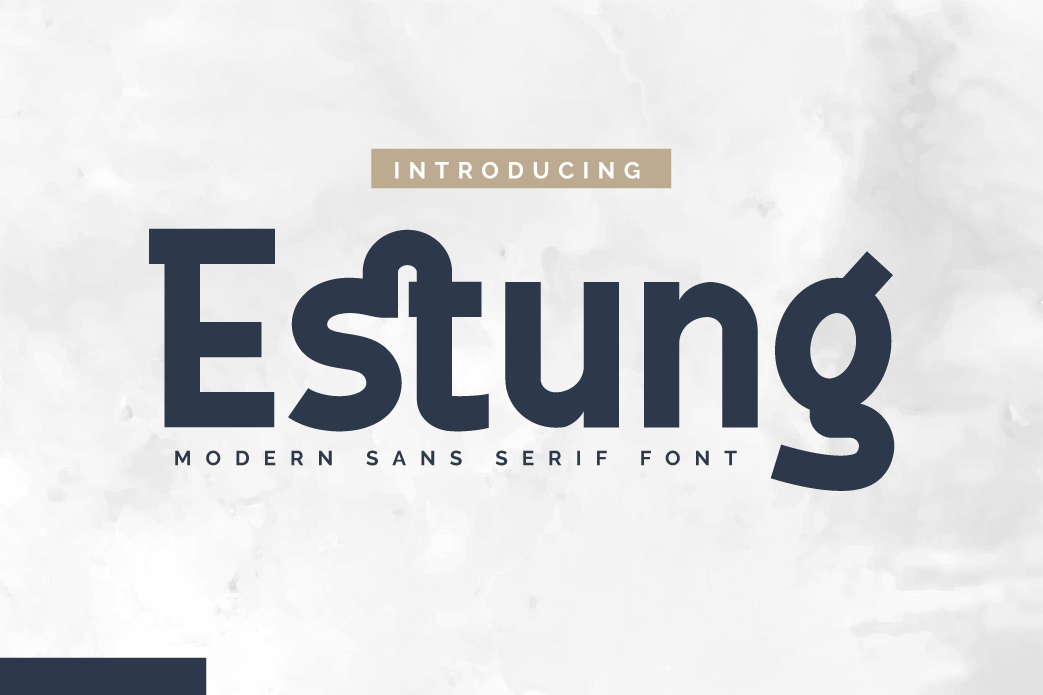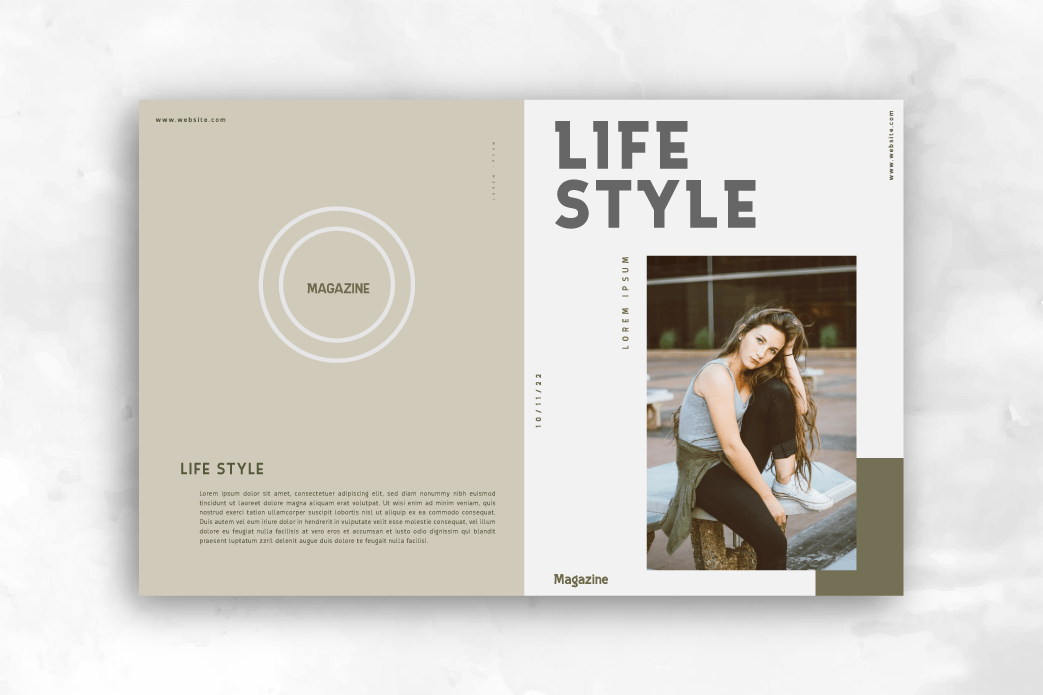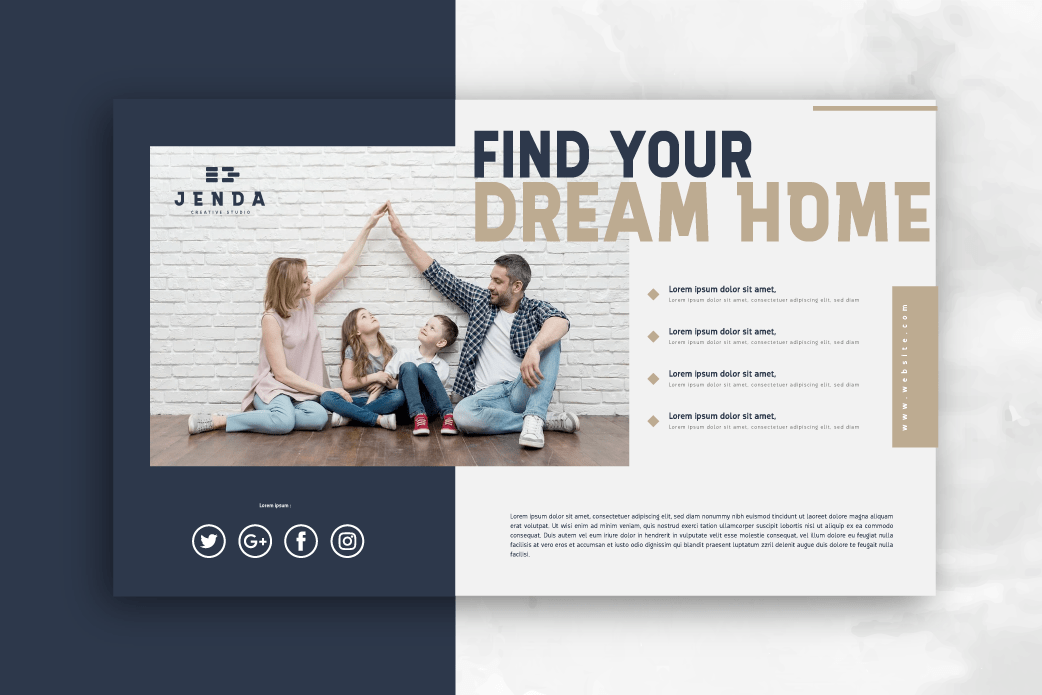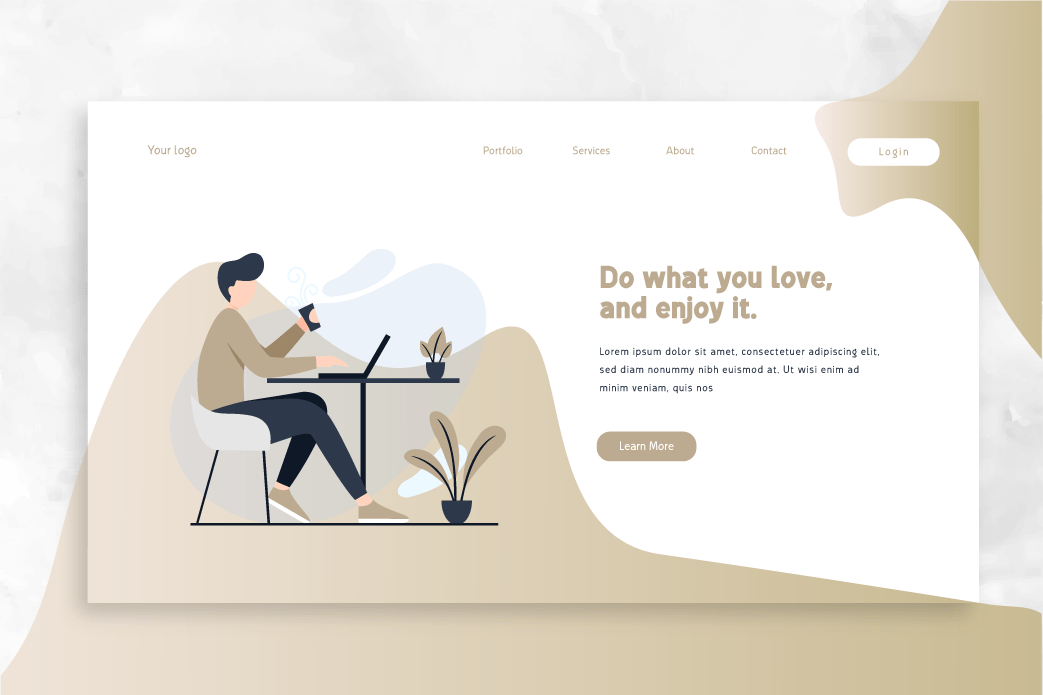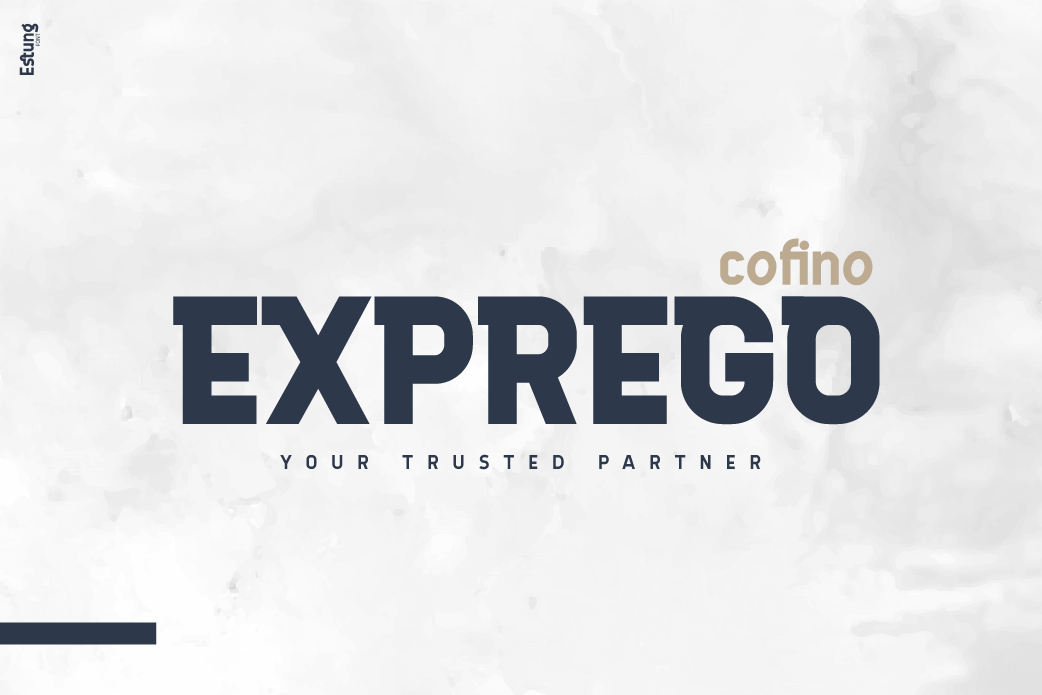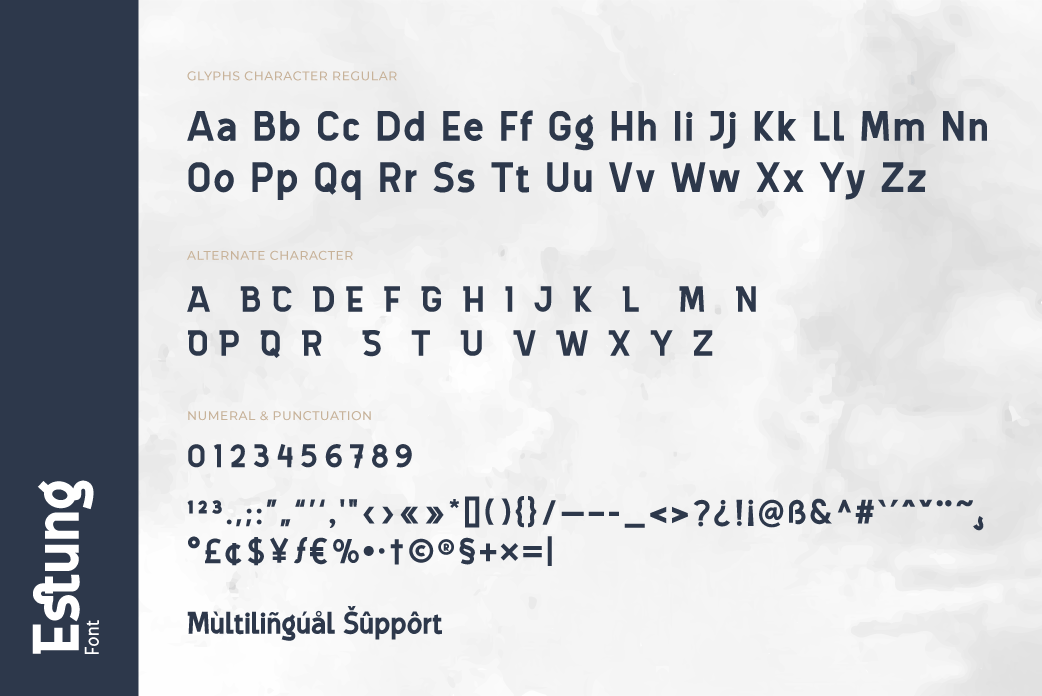
Estung
Introducing our newest font, Estung.
A beautiful geometric font for writing titles and sentences that are comfortable to see while reading, unique, simple, and elegant, making this font suitable for you to use in various needs of your design projects. flexible in its use, there are 3 options according to your needs
This font is very suitable as text with displays for various kinds of branding, advertisements, posters, banners, packaging, news headlines, magazines, websites, logo design, banners, social media design, and of course you can use a lot more.
• Fonts include multilingual support for; Afrikaans, Albanian, Croatian, Czech, Danish, Dutch, English, Estonian, Finnish, French, German, Hungarian, Italian, Norwegian, Polish, Portuguese, Slovak, Slovenian, Spanish, Swedish